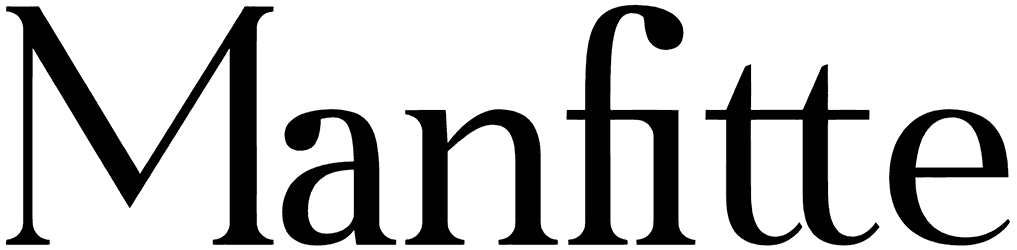
Manfitte Font
It takes only one click to let your design reach higher levels of sophistication when you choose a classic font like Manfitte. Basically, any time you feel like it’s more important than ever to optimize your words with a fashionable look, Manfitte hits the spot.
Available in a few different weights, this business card font allows you to style your text just as you please, especially if you’re working for a law office, a tailor, or a real estate agent.